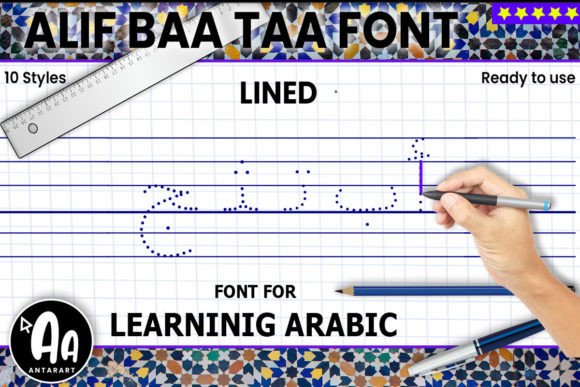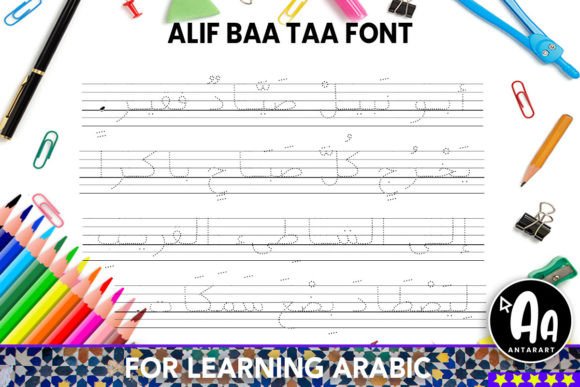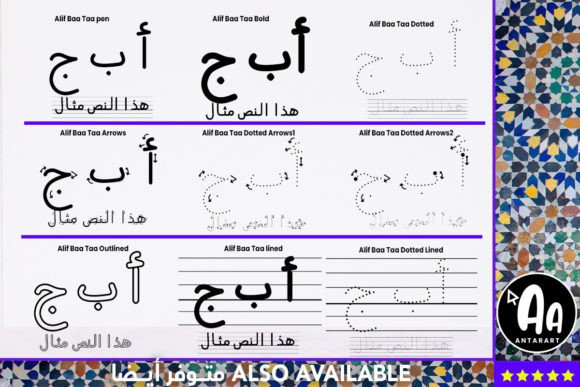
Alif Baa Taa Dotted Lined Font
About Alif Baa Taa Dotted Lined Font
Alif Baa Taa Dotted LinedFont is a unique handwritten Arabic script created for teaching and learning purposes. With its dotted and lined structure, this font helps learners trace and practice Arabic letters while keeping the learning process engaging. Because of its design, Alif Baa Taa Dotted Lined Font is especially useful for worksheets, educational materials, and classroom activities.
A Handwritten Arabic Typeface for Education
Educational fonts need clarity and functionality, and Alif Baa Taa Dotted Lined Font delivers both. Its dotted outlines guide learners in shaping letters correctly, while its lined format supports alignment and consistency. Moreover, it provides an authentic handwritten style, making practice feel closer to real writing. As a result, this typeface is an essential resource for teachers and students alike.
Perfect Typeface for Worksheets and Tracing
For educators, Alif Baa Taa Dotted Lined Font is a practical solution for designing custom worksheets. For example, teachers can create tracing exercises that allow students to follow the dotted paths and master each Arabic character. In addition, it works beautifully for flashcards, homework sheets, and workbook pages. Because of its dotted design, students can trace, rewrite, and color letters to make learning interactive and fun.
A Typeface for Students and Language Enthusiasts
Students and self-learners will also find Alif Baa Taa Dotted LinedFont incredibly helpful. It allows Arabic learners to improve handwriting, practice pronunciation, and memorize letters through repetition. Furthermore, it can be paired with other Arabic fonts to create a progression of learning materials, from basic tracing to advanced writing. This makes the font suitable not only for beginners but also for intermediate learners.
Flexible Across Print and Digital Platforms
Another strength of Alif Baa Taa Dotted LinedFont is its adaptability across mediums. In print, it is perfect for worksheets, textbooks, and language handouts. Digitally, it works well in e-learning modules, mobile apps, and interactive presentations. Since it maintains clarity at different sizes, it can be used for both small exercises and large classroom displays.